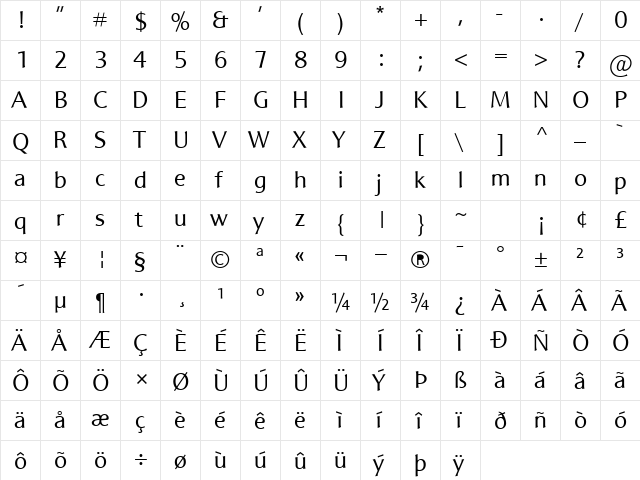
AI Signa Medium Font Preview
AI Signa Medium
Design Context for AI Signa Typeface
AI Signa takes a measured approach to typography — its balanced proportions and neutral character make it a reliable workhorse for both digital and print work.